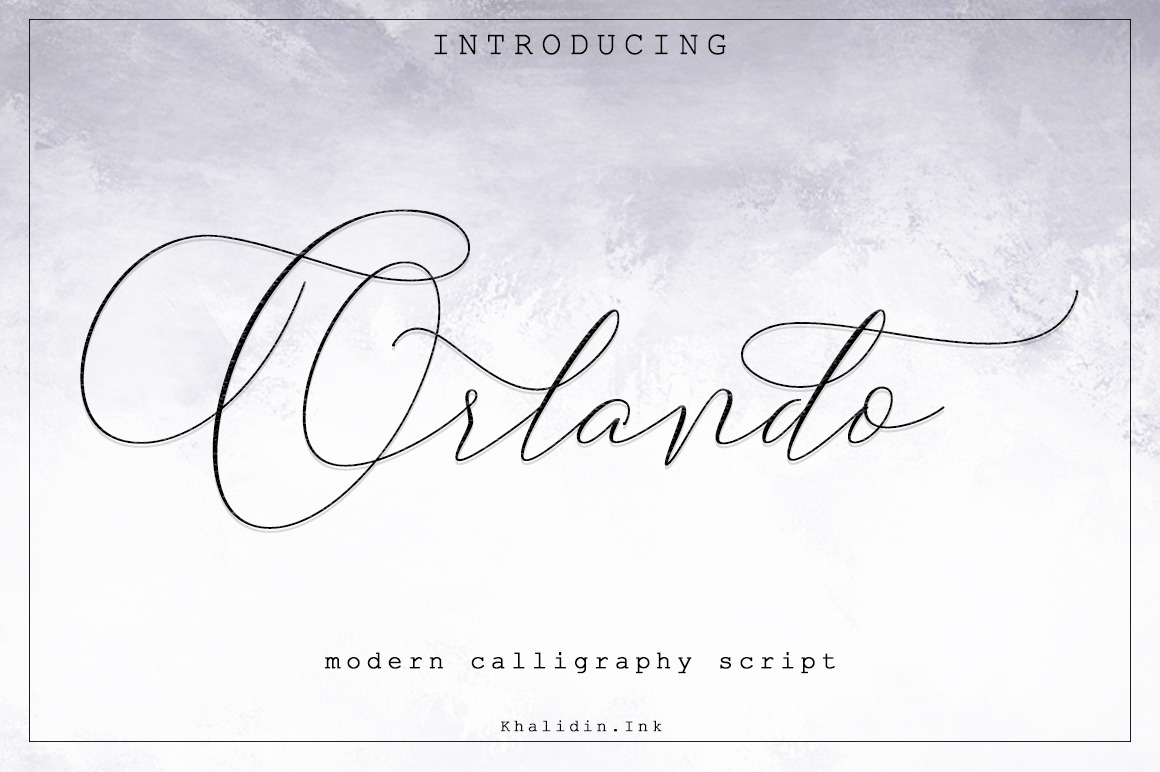
Orlando Script Font
NEW FRESH ! Orlando Font Script. It's an modern typeface. Orlando Font Script, including swashes, ligatures,Alternate and International support for most Western Languages is included. Orlando Font Script come with 550 glyphs